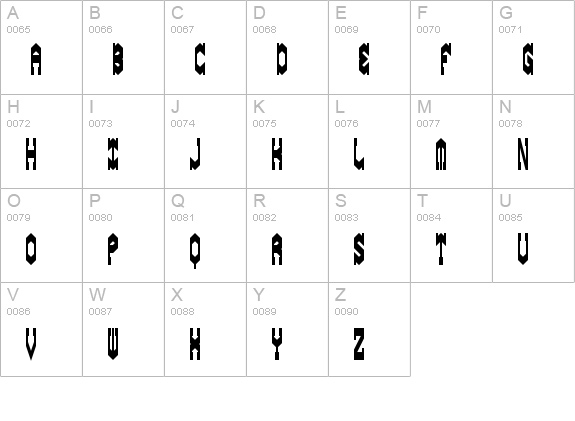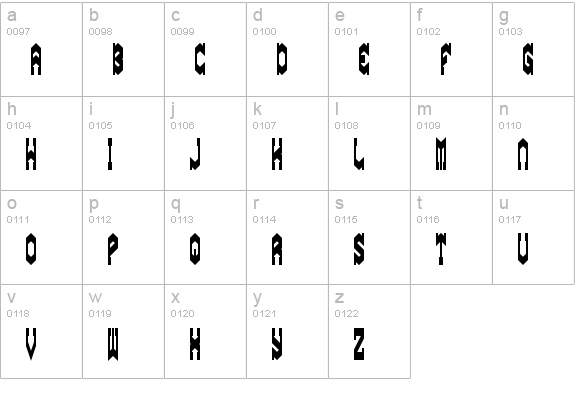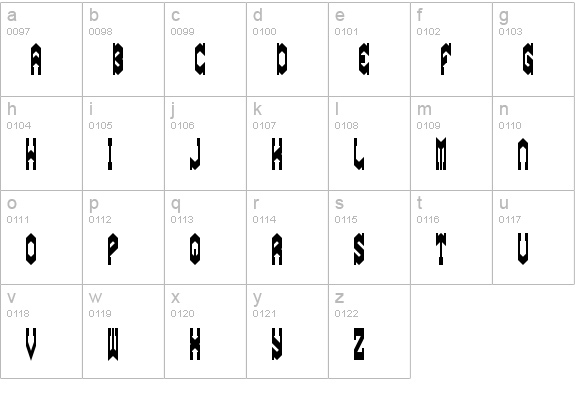
Gyrose Squeeze BRK Font Details
Gyrose Squeeze BRK font is a unique and eye-catching typeface that is sure to make a statement in any design project. With its bold and geometric shapes, this font exudes a sense of modernity and sophistication. The Gyrose Squeeze BRK font is perfect for branding, headlines, posters, and more, adding a touch of elegance and style to your creations. What's even better is that Gyrose Squeeze BRK font is available for free download at FontsMarket.com. So, whether you're a designer looking to add a fresh new font to your collection or simply want to enhance your projects with a stylish typeface, Gyrose Squeeze BRK font is the perfect choice. Download it today and elevate your designs with this stunning font.